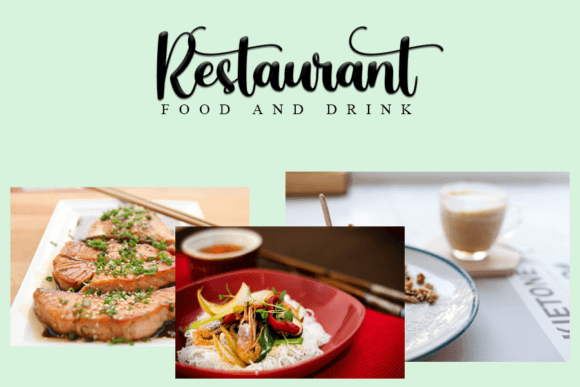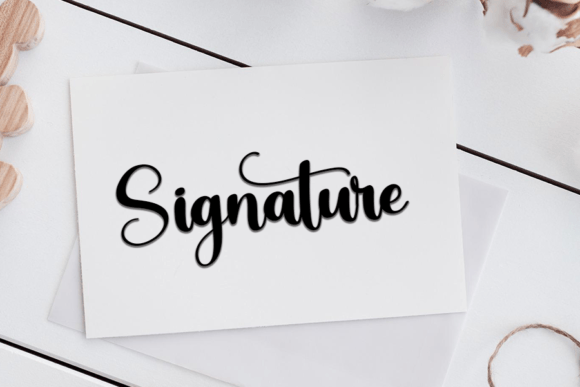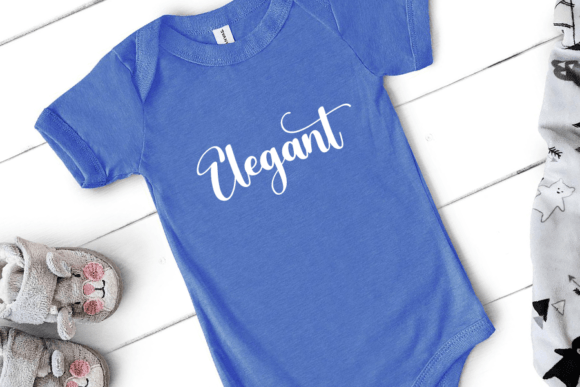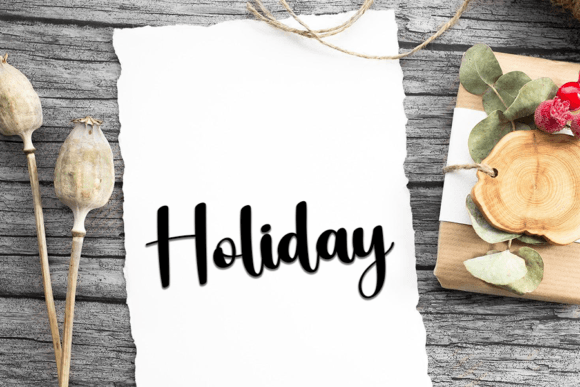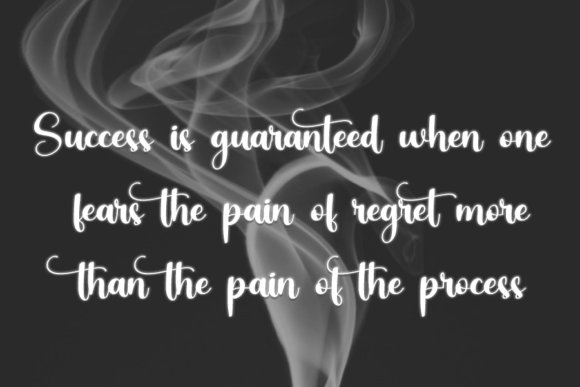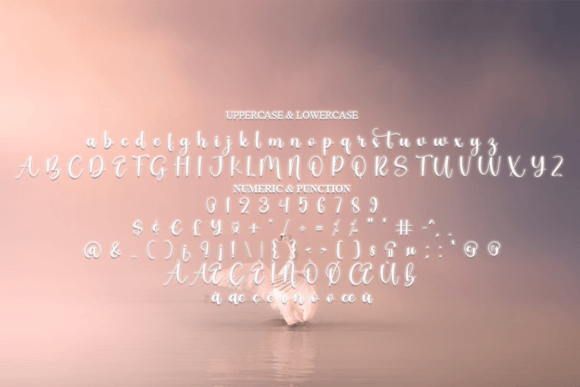
Elegant Font: The Ultimate Choice for Designers and Crafters
Elegant is a bold, gorgeous script font that has been making waves in the design community. Whether you’re using it for crafts, digital design, presentations, or making greeting cards, this font has the potential to become your favorite go-to font, no matter the occasion. In this article, we’ll dive into the world of Elegant font, exploring its features, uses, and benefits for designers and crafters alike.
What is Elegant Font?
Elegant font is a type of script font that exudes sophistication and glamour. Its bold and flowing strokes make it perfect for creating eye-catching designs that demand attention. The font features intricate details and ornate flourishes, giving it a luxurious feel that’s hard to resist. Whether you’re working on a digital project or a craft, Elegant font is sure to elevate your design to the next level.
Features of Elegant Font
So, what makes Elegant font so special? Here are some of its key features:
- Bold and Gorgeous: Elegant font is a bold and stunning script font that’s sure to make a statement.
- Versatile: Whether you’re using it for digital design, crafts, or presentations, Elegant font adapts seamlessly to any medium.
- Intricate Details: The font features intricate details and ornate flourishes, giving it a luxurious feel.
- Easy to Read: Despite its bold and ornate design, Elegant font is surprisingly easy to read, making it perfect for body text and headings.
Uses of Elegant Font
Elegant font is an incredibly versatile font that can be used in a variety of contexts. Here are some of the most popular uses of Elegant font:
- Crafts: Elegant font is perfect for crafters who want to add a touch of elegance to their projects. Use it for scrapbooking, card making, or any other craft that requires a beautiful font.
- Digital Design: Elegant font is a popular choice for digital designers who want to create stunning visual content. Use it for social media graphics, blog posts, or website headers.
- Presentations: Add a touch of sophistication to your presentations with Elegant font. It’s perfect for titles, headings, and emphasis text.
- Greeting Cards: Elegant font is a beautiful choice for greeting cards, whether you’re making them for special occasions or just because.
Benefits of Using Elegant Font
So, why should you choose Elegant font for your next project? Here are some of the benefits of using this gorgeous script font:
- Elevate Your Design: Elegant font has the power to elevate your design to the next level. Its bold and luxurious feel adds a touch of sophistication to any project.
- Stand Out from the Crowd: With Elegant font, you can create designs that stand out from the crowd. Its unique and ornate design makes it a great choice for designers who want to make a statement.
- Save Time: Elegant font is easy to use and works seamlessly across different mediums. This means you can save time and focus on other aspects of your design.
- Impress Your Audience: Whether you’re designing for clients or creating personal projects, Elegant font is sure to impress your audience. Its luxurious feel and bold design make it a great choice for creating stunning visual content.
Tips for Using Elegant Font
Here are some tips for using Elegant font in your next project:
- Use it Sparingly: While Elegant font is stunning, it’s best used sparingly. Use it for headings, titles, or emphasis text to create visual interest.
- Pair it with Simple Fonts: Elegant font works best when paired with simple fonts. Try pairing it with a clean sans-serif font for a striking contrast.
- Experiment with Colors: Elegant font looks great in a variety of colors. Experiment with different colors and combinations to find the one that works best for your design.
Elegant font is a gorgeous script font that’s perfect for designers and crafters alike. Its bold and luxurious feel makes it a great choice for creating stunning visual content, from digital design to crafts and presentations. With its versatility, ease of use, and impressive features, Elegant font is sure to become your go-to font for any occasion. So why wait? Give Elegant font a try today and elevate your design to the next level!